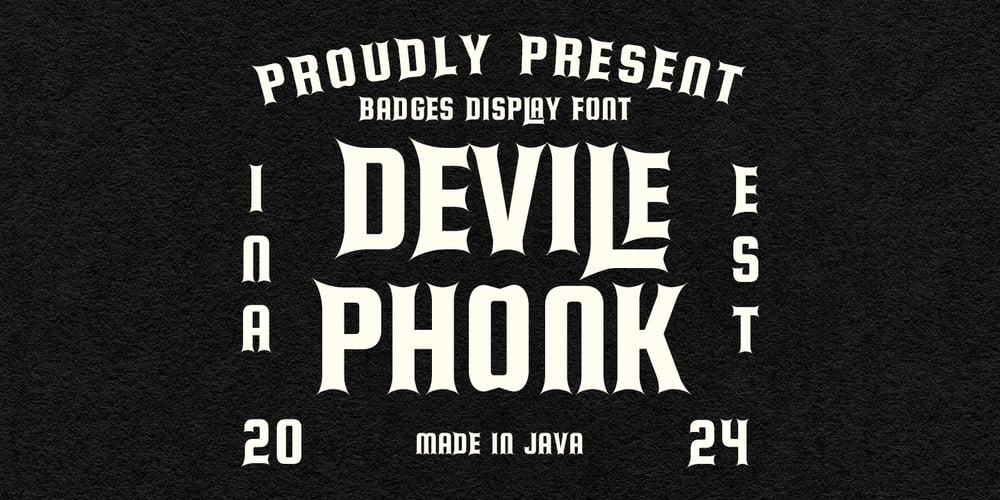
MC Devile Phonk
MC Devile Phonk font
MC Devile Phonk Font Family was designed by Gilang Maulana and published by Maulana Creative. MC Devile Phonk contains 1 styles and family package options. Devile Phonk badges display font. With sharp bold stroke, fun character with a bit of ligatures. To give you an extra creative work. Devile Phonk display font support multilingual more than 100+ language. This font is good for logo design, Social media, Movie Titles, Books Titles, a short text even a long text letter and good for your secondary text font with script or serif. Make a stunning work with Devile Phonk display font.Cheers,Maulana Creative